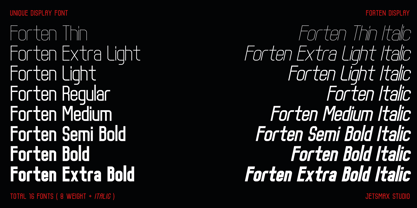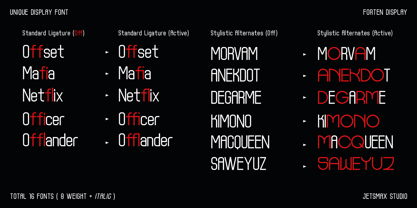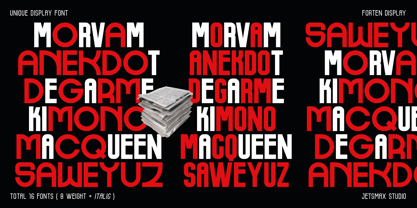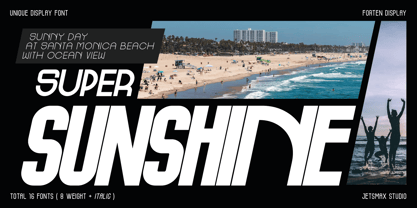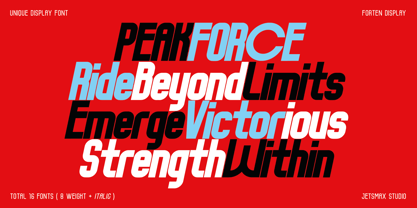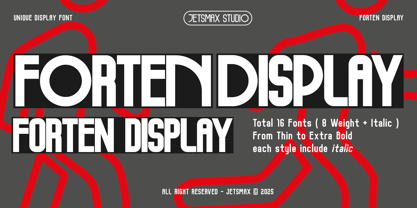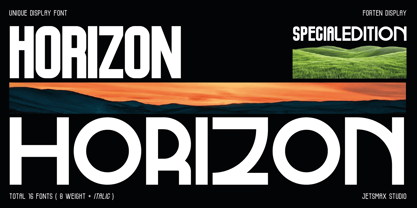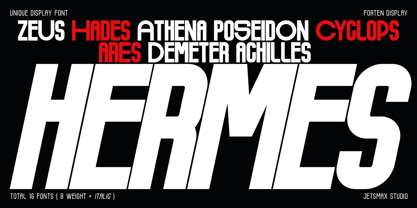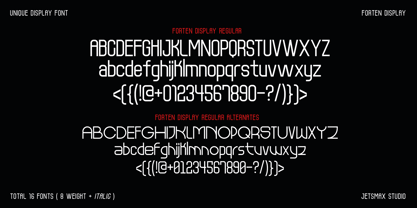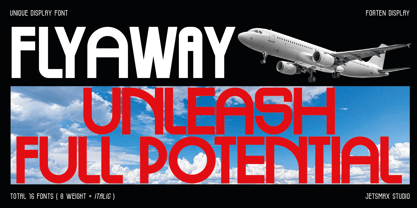
Forten Display
Die Schriftfamilie Forten Display wurde von Khairil Anwar entworfen und von Jetsmax Studio veröffentlicht. Forten Display enthält 16 Stile und Familienpaketoptionen. Mehr über diese Familie
Forten Display is a distinctive and modern condensed typeface designed to make a strong visual impact. Featuring a complete set of 16 fonts — 8 weights from Thin to ExtraBold, each with a matching italic — this font family offers versatile expression and dynamic contrast for any design need.
Crafted with unique personality, Forten Display stands out with its clean, stylish structure, compact spacing, and alternative characters that invite creative exploration. Whether you’re designing logos, headlines, posters, or branding materials, Forten Display gives your work a bold, contemporary edge while maintaining elegance and readability.